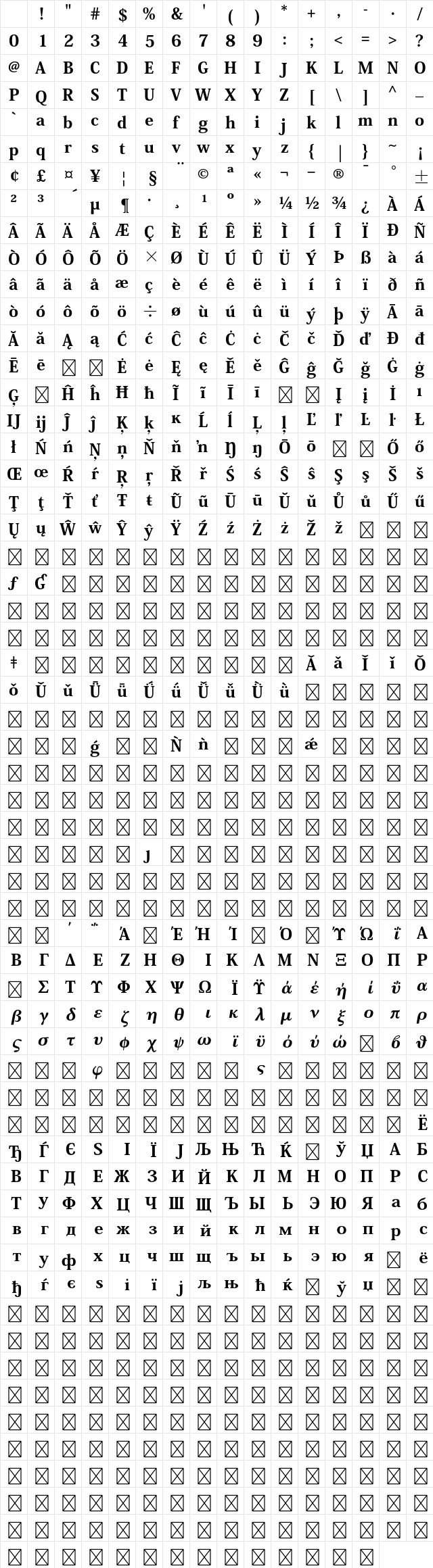
Complete Kozuka Mincho Pr6N H Bold glyph index. Displaying only characters natively supported by Kozuka Mincho Pr6N H Bold font.
Kozuka Mincho Pr6N H is a composed and adaptable typeface that performs quietly and consistently across a wide range of design contexts. Its bold stroke weight gives it real presence on the page.